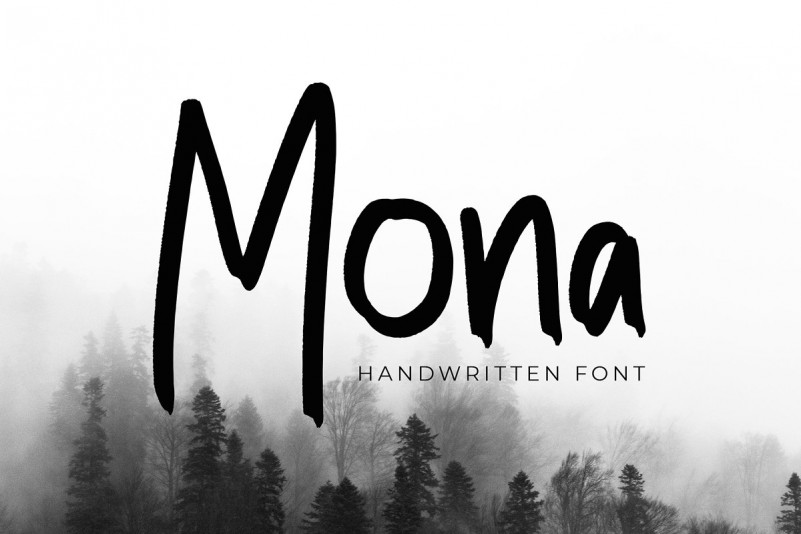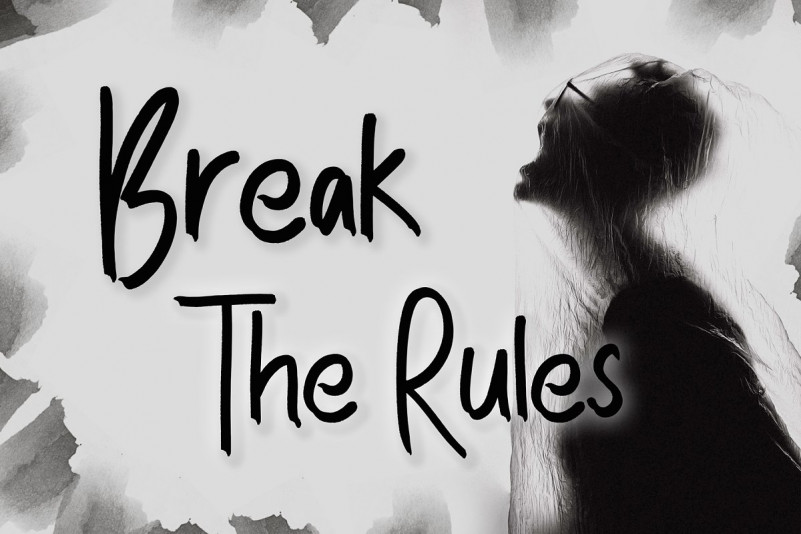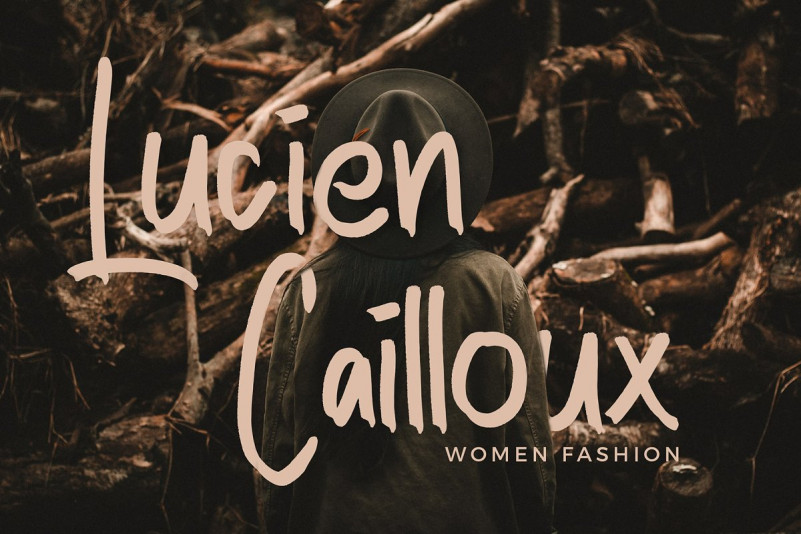
Mona Modern Font
Mona is playful modern handwritten font. This font perfect for branding projects, logo, book cover design, tshirt designs, social media posts, advertisements, product packaging, product designs, label, watermark, invitation, stationery and any projects